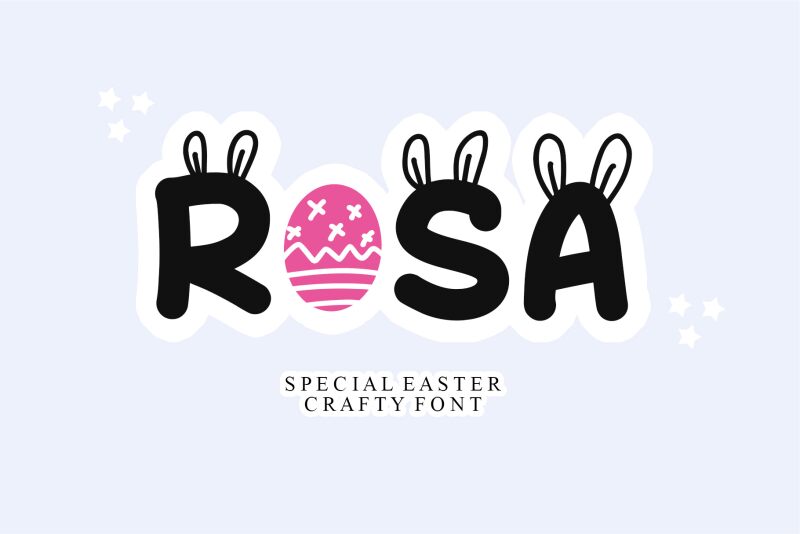
Meet Rosa, the playful and delightful semi-bold font designed by Letterafa Studio. This charming typeface is perfect for all kinds of Easter-themed creative projects, from social media graphics to greeting cards and beyond. With its semi-expanded width, Rosa offers a friendly and approachable feel that's sure to bring a smile to anyone's face. Whether you're designing an Easter egg hunt flyer or a whimsical children's book cover, Rosa is the ideal choice for adding a touch of fun and festivity to your work. So why not give this delightful cartoon font a try today?